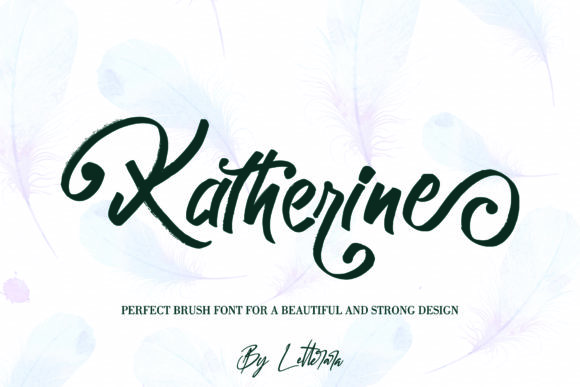
Prepare to be captivated by Katherine Font, a breathtaking script font that exudes raw emotion and artistic flair. Its hand-crafted charm, reminiscent of a skilled artist's brushstrokes, dances across your designs with an enchanting allure. The irregular baseline adds a touch of playful spontaneity, making each word a unique masterpiece.
Immerse yourself in the magic of Katherine Font. Its fluid curves and organic textures evoke a sense of intimacy and warmth, inviting your readers to delve deeper into your content. Let your words dance with elegance as they unfold a tale of passion, creativity, and boundless imagination.
Katherine Font is a versatile chameleon, effortlessly adapting to a myriad of design projects. Its versatility shines through whether you're crafting logos, branding materials, wedding invitations, social media graphics, or any creative endeavor that demands a touch of elegance and sophistication.
With Katherine Font, you hold the key to unlocking a world of creative possibilities. Let your imagination soar as you explore new horizons of design, leaving a trail of beauty and inspiration in your wake. Embrace the power of Katherine Font and watch your designs transform into works of art.